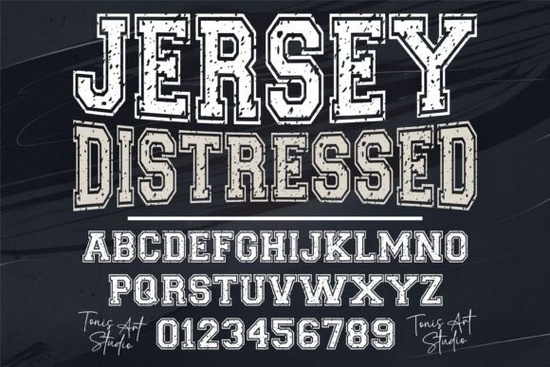
If you're designing football jerseys, gym apparel, or team merch and want that authentic, weathered varsity look Jersey Distressed Font is a straightforward choice. It’s not overly stylized or trendy; it’s built for legibility, impact, and real-world use on fabric, vinyl, and print. Think of it as the kind of font you’d see stitched across a high school letterman jacket or screen-printed on a CrossFit T-shirt not polished, but purposeful.
What makes Jersey Distressed work so well for sports branding?
This font leans into its roots: bold uppercase letters with intentional texture, uneven edges, and subtle wear that mimics decades of sweat, sun, and stadium lights. Unlike clean sans-serifs or decorative script fonts, it carries visual weight and character without needing extra effects. That means less time tweaking in design software and more time getting your designs cut on Cricut or Silhouette machines or prepped for DTG printing.
Where does it fit in your design workflow?
You’ll reach for Jersey Distressed Font when you need instant athletic credibility like mocking up a custom jersey for a local rec league, building a logo for a fitness challenge, or adding team names to water bottles and hoodies. It pairs especially well with simple shapes (like circles, shields, or stripes) and muted or high-contrast color combos navy + gold, black + neon green, charcoal + white.
It’s also forgiving for beginners. Because the letterforms are large and open, spacing stays readable even at smaller sizes (down to ~1.5" tall on a shirt front), and the distressed effect doesn’t break up at low resolutions unlike some ultra-gritty fonts that pixelate or lose definition when scaled.
How does it compare to other display fonts you might already own?
It sits comfortably between clean and rugged. For example, if you love the warmth of Romantic Aura Duo, you’ll appreciate how Jersey Distressed swaps elegance for energy but keeps the same level of typographic intention. Or if you regularly use Leah Font for friendly, hand-drawn vibes, think of Jersey Distressed as its no-nonsense cousin: same attention to rhythm and balance, different attitude.
Compared to something like Forever Humble Font, which leans into soft minimalism, Jersey Distressed embraces contrast and texture. And unlike Cowboy Western Font, which evokes desert dust and saloon signs, this one speaks straight to bleachers, locker rooms, and weight rooms.
Real uses beyond jerseys
Designers and small businesses tell us they’ve used it for:
- Team warm-up shirts and tournament banners
- Gym wall decals and motivational posters
- Custom water bottles and duffel bags for sports camps
- Print-on-demand hoodie collections with “Squad,” “Champ,” or “Grind” slogans
- Instagram story templates for coaches and trainers
One craft seller mentioned using it for heat-transfer vinyl projects on cotton blend tees no weeding issues, even with tight kerning. Another used it for a youth soccer club’s fundraising campaign, pairing it with a simple shield icon and getting consistent positive feedback on readability from parents scrolling on mobile.
Quick checklist before your next sports-themed project:
- Pair with a neutral sans-serif for body text avoid stacking two distressed fonts
- Double-check spacing some letters (like “A”, “V”, “W”) have strong angles that benefit from slight manual kerning